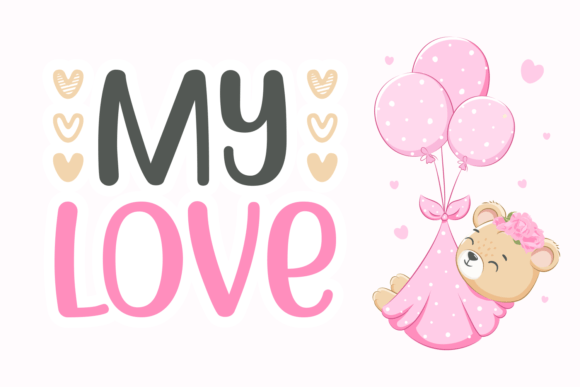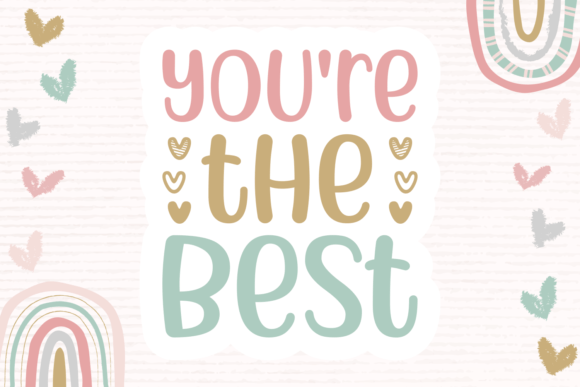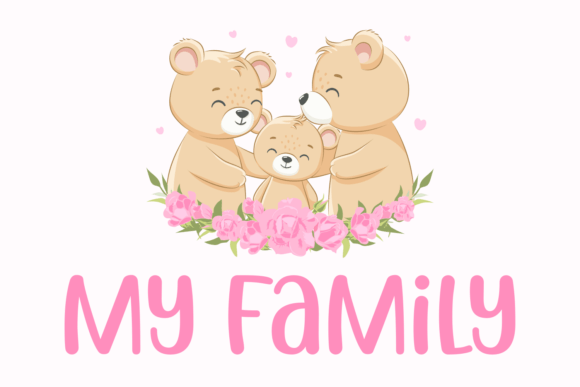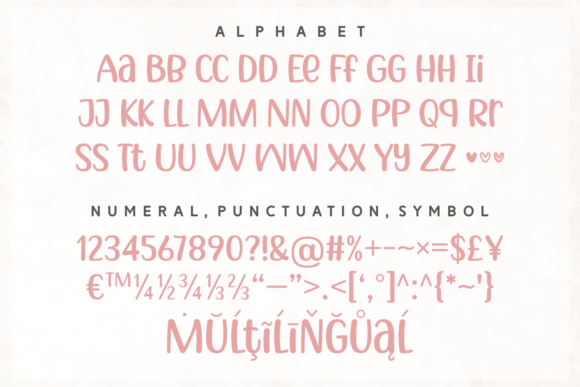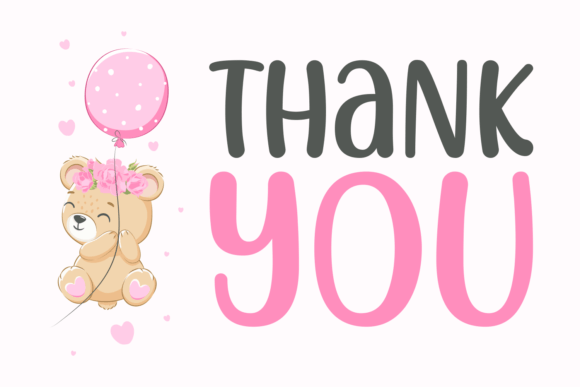
The Caffe Story Font: A Playful Display Font to Bring Your Designs to Life
• ✨ Playful and whimsical design: Caffe Story Font is perfect for designs that need a bit of fun and personality.
• ✅ Highly legible: Despite its playful nature, this font remains easy to read, even at smaller sizes.
• 💡 Versatile: Use it for titles, headings, or even short paragraphs – Caffe Story Font adapts well to different design contexts.
• 🤔 Limited suitability for body text: Due to its playful nature, Caffe Story Font might not be the best choice for longer blocks of text.
• ⚠️ Some characters may require manual kerning: As with any font, you might need to adjust the kerning for certain character combinations to achieve optimal results.
What type of projects is Caffe Story Font best suited for? Caffe Story Font is perfect for designs that require a playful touch, such as titles, headings, and short paragraphs.
Is Caffe Story Font suitable for body text? While Caffe Story Font is legible, it might not be the best choice for longer blocks of text due to its playful nature.